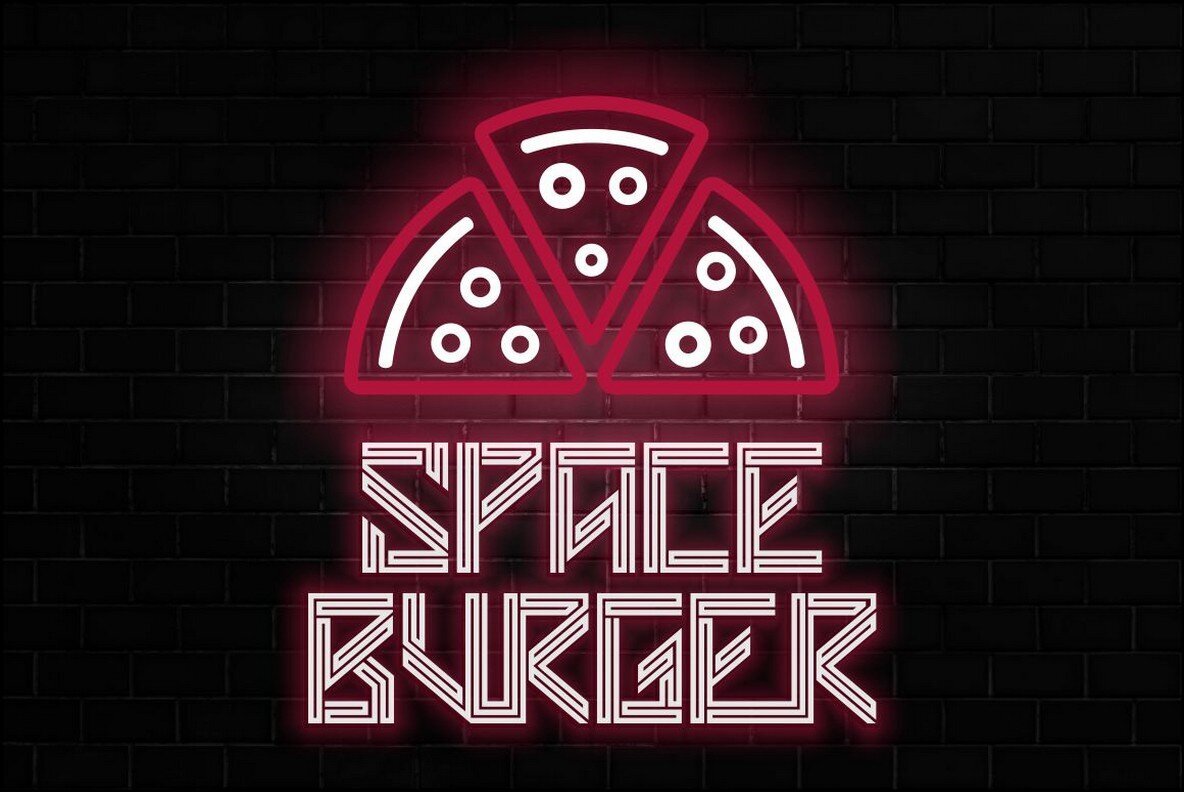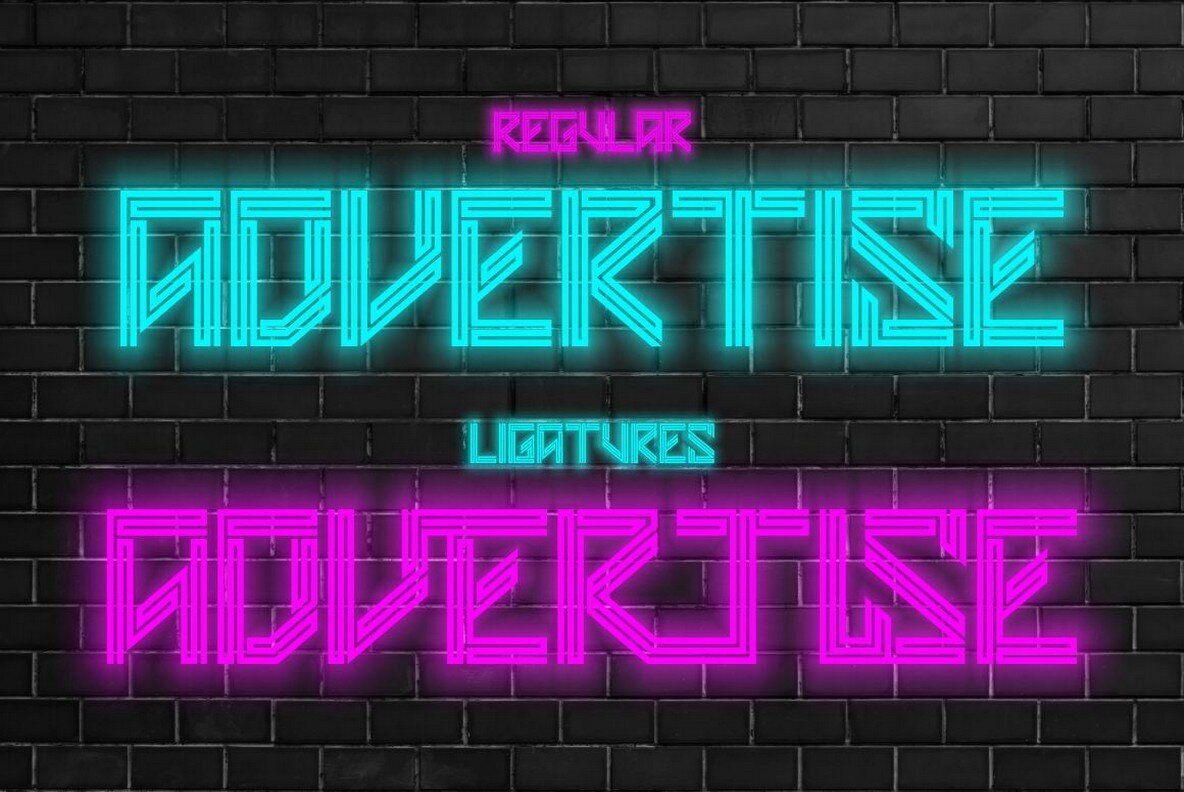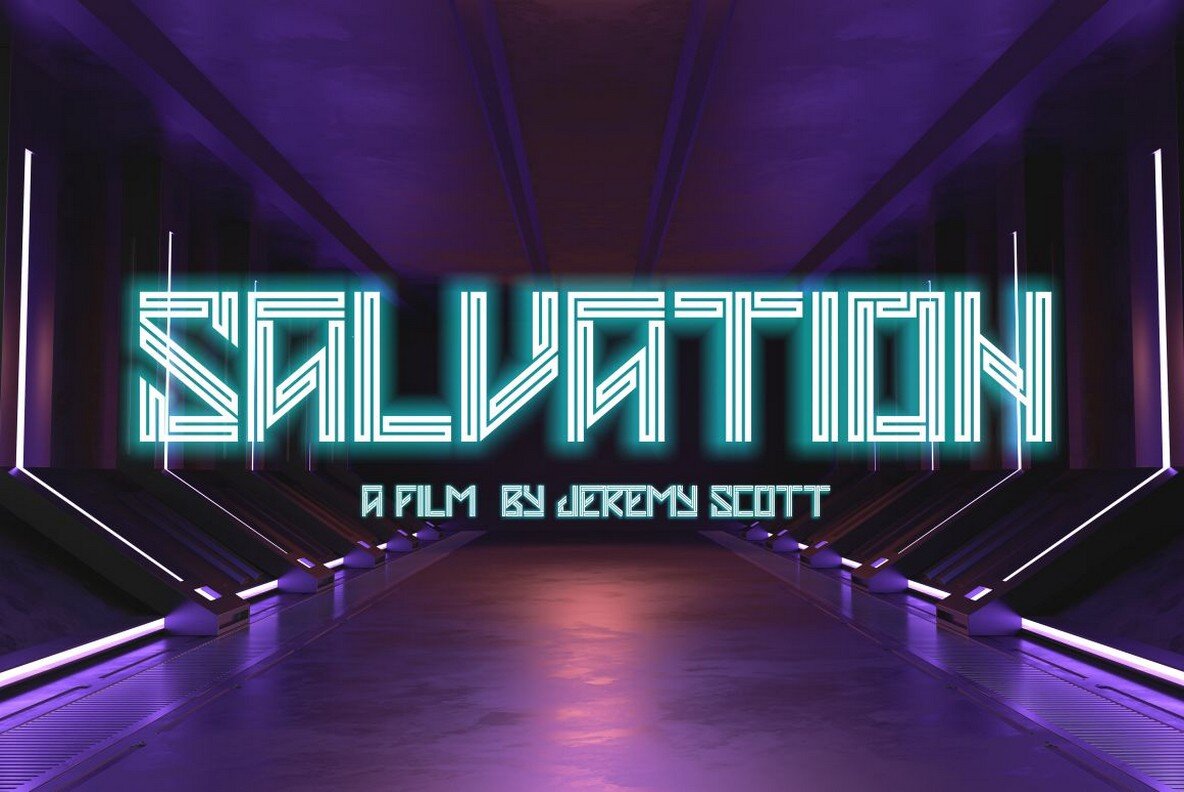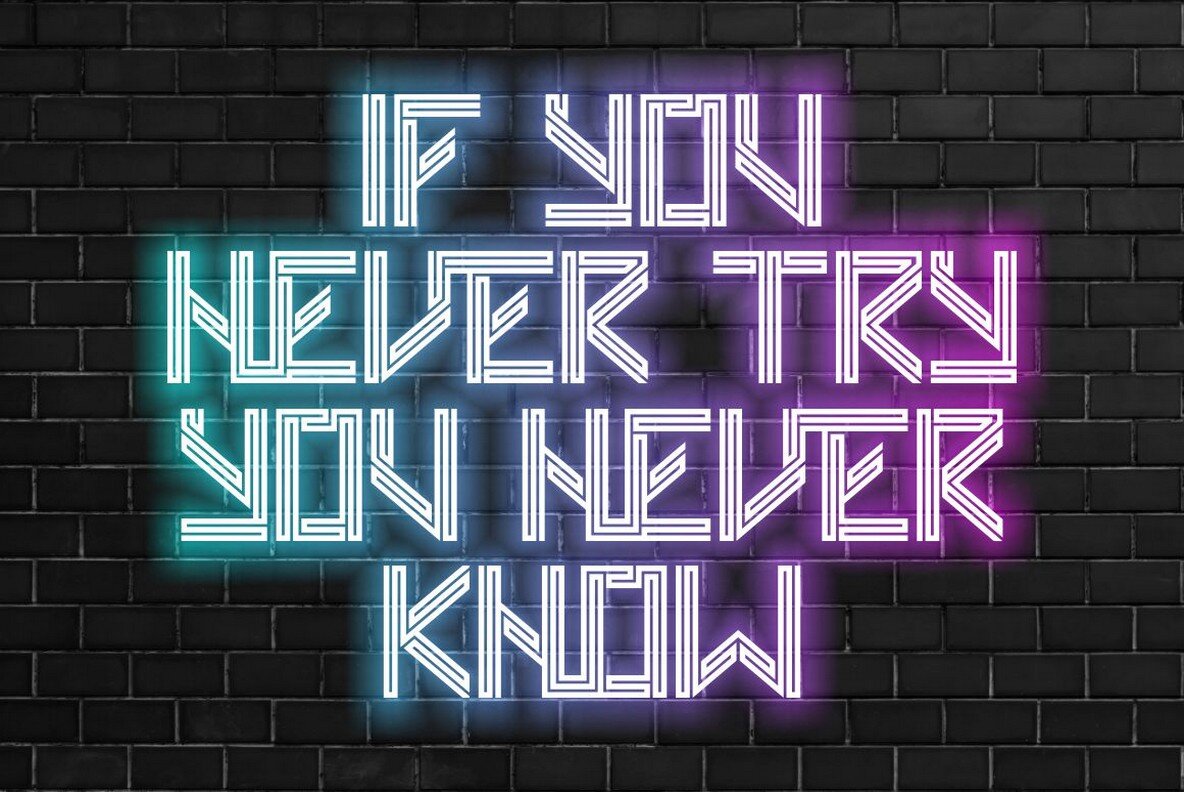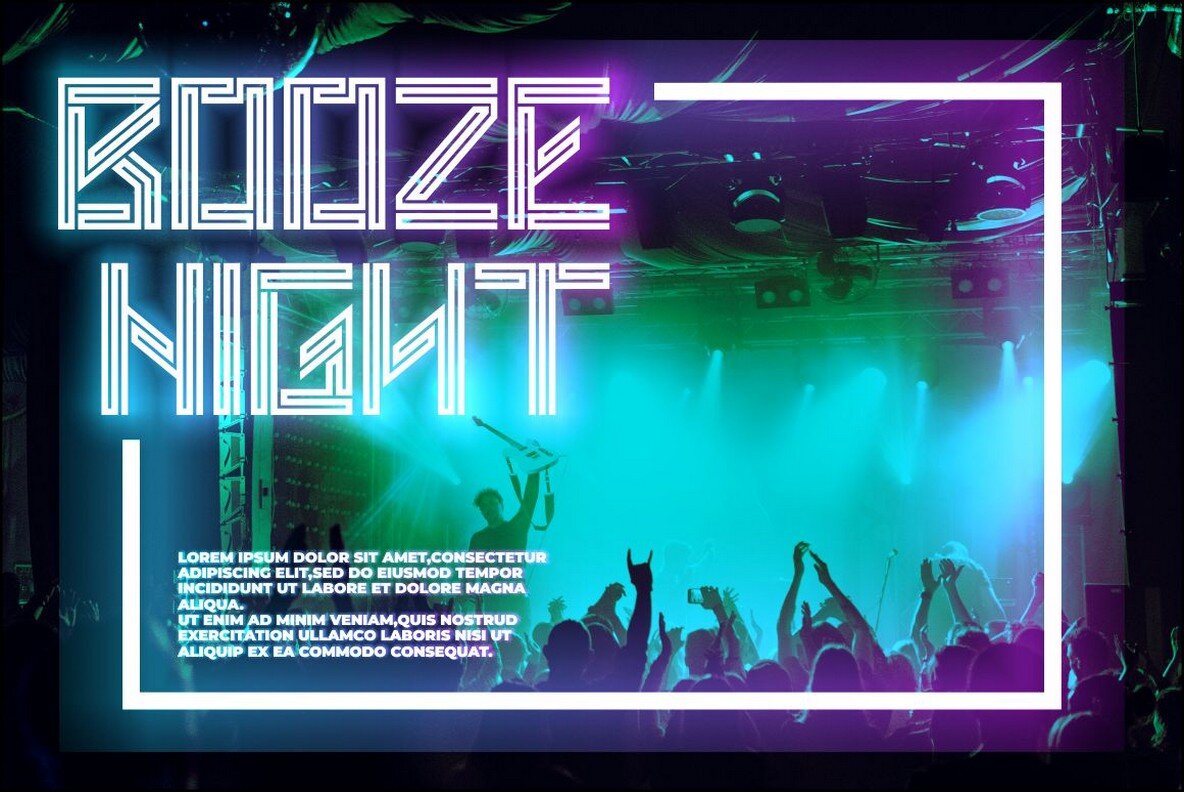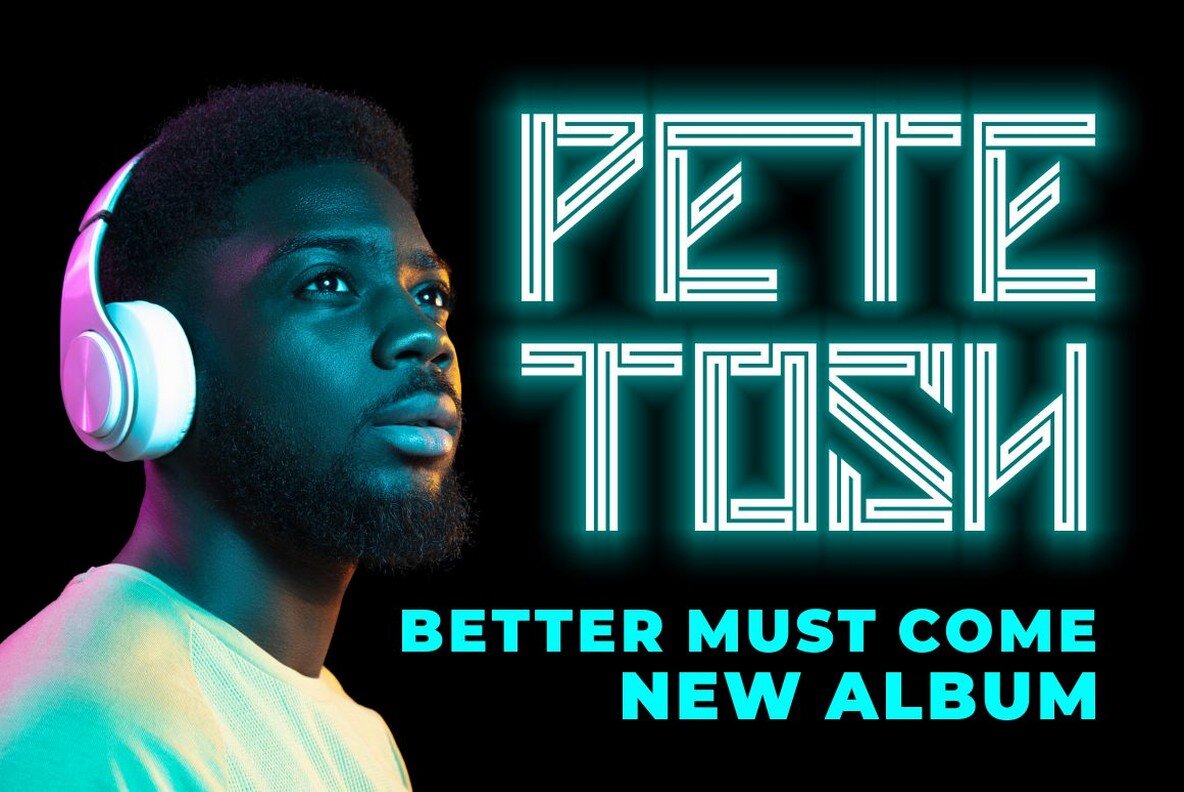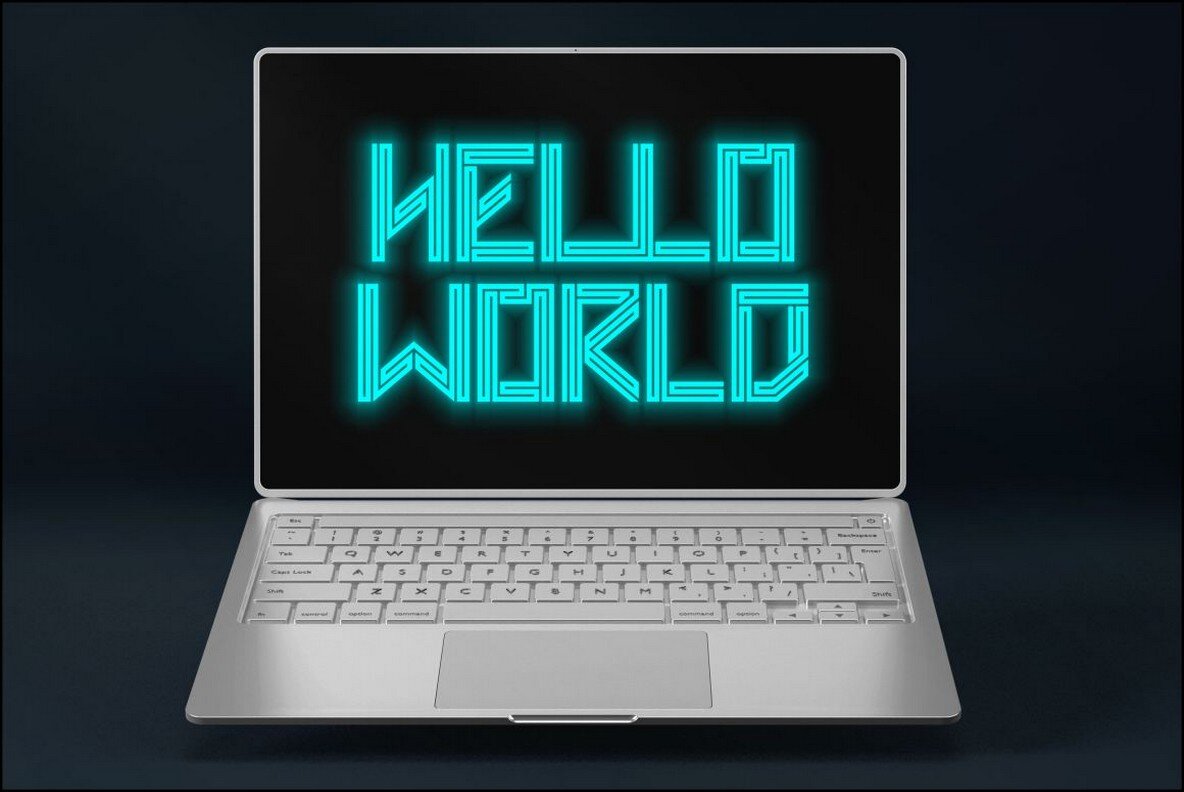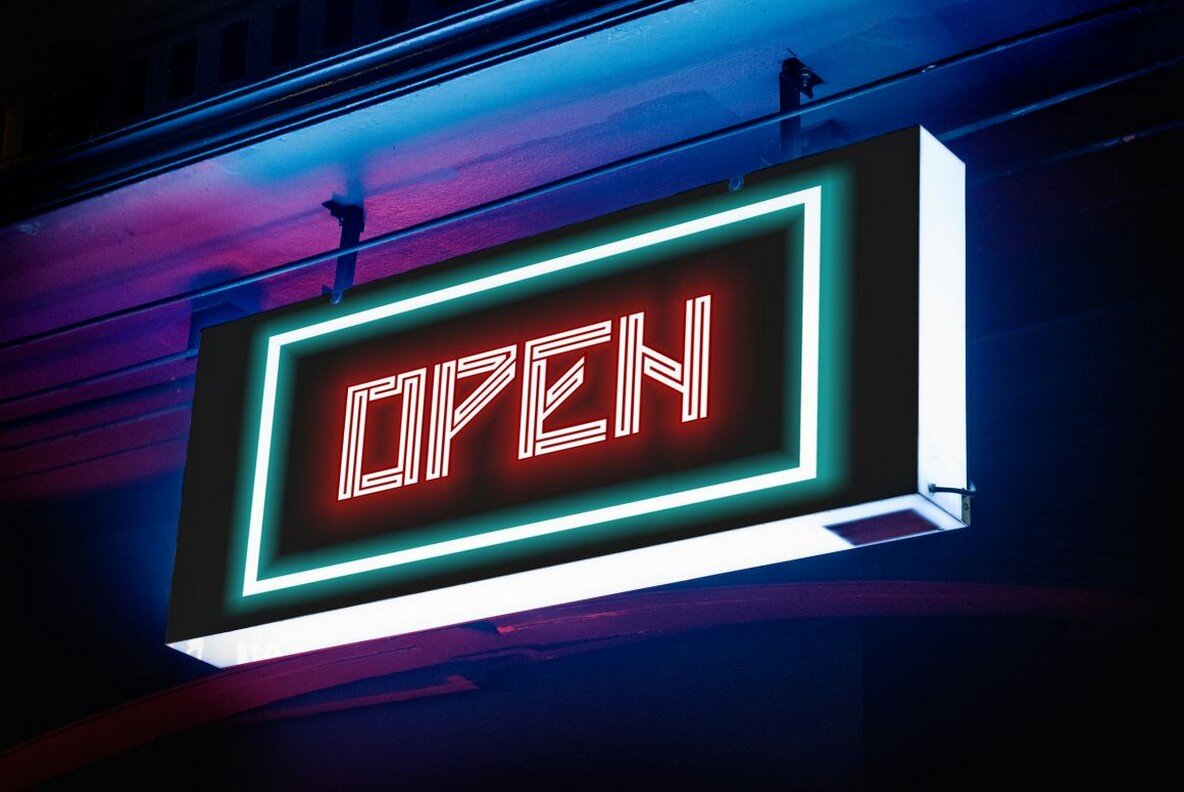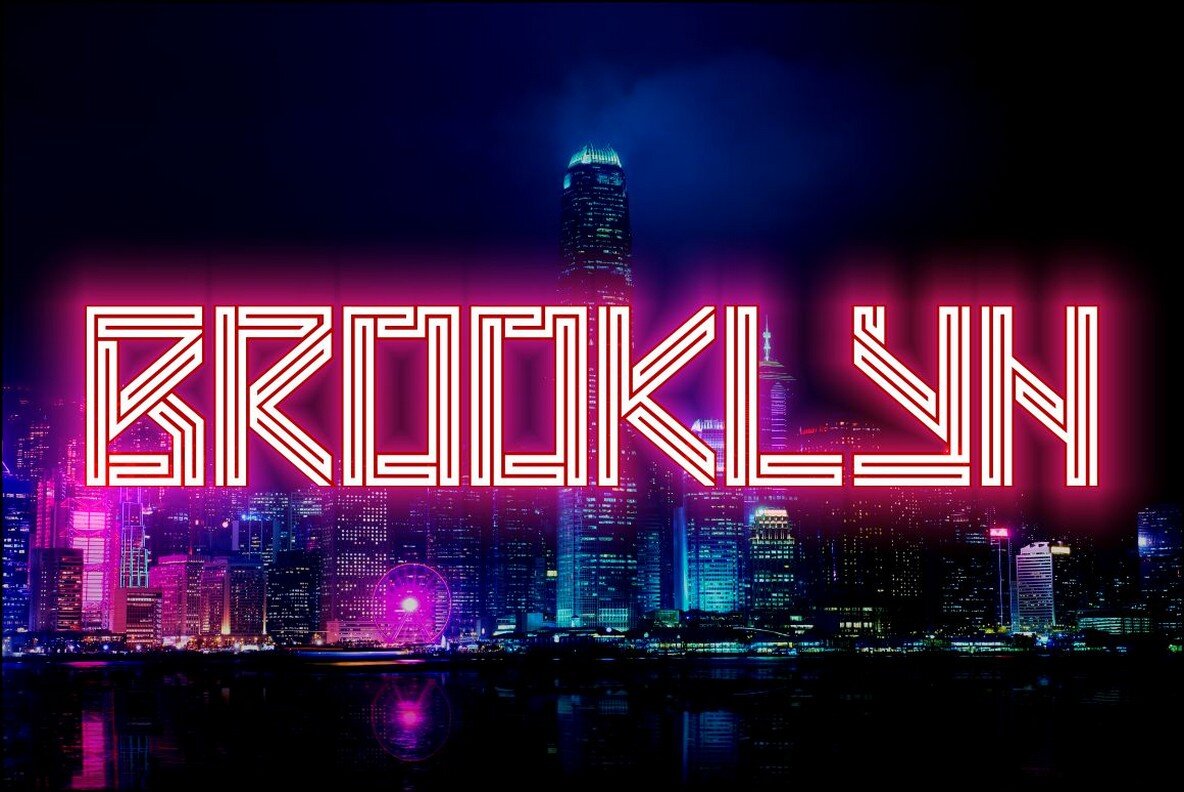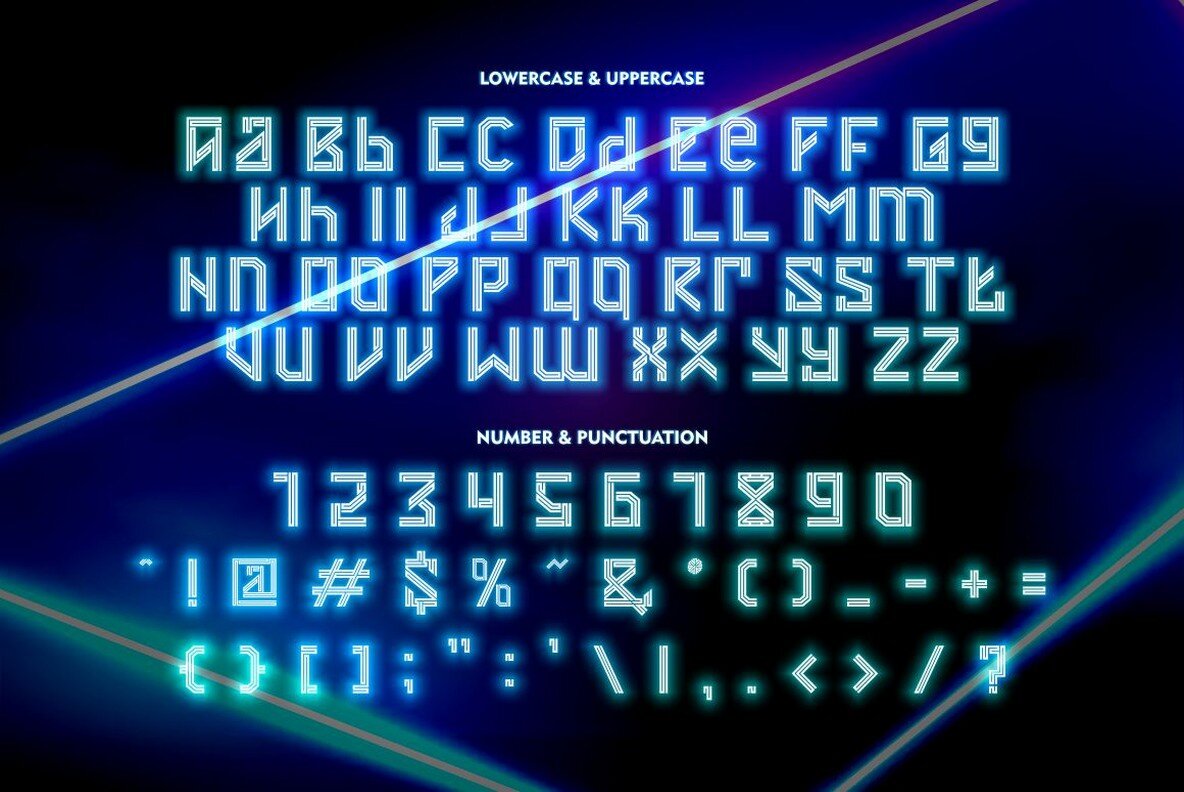
Neonbox Font
Neonbox Regular
Neonbox is a captivating display typeface that merges modern style with digital aesthetics, inspired by the glow of neon lights and futuristic neon art. An excellent choice for logo design, cover art, posters, branding projects, user interfaces, and titles. Neonbox brings a vibrant and avant-garde element to any visual project, making it a versatile addition to your creative toolkit. Neonbox also supports multiple languages, making it a globally adaptable choice. To fully exploit its range of alternate glyphs, access programs supporting OpenType features, such as Adobe Illustrator CS, Adobe Photoshop CC, Adobe InDesign, and Corel Draw.Neonbox: A Futuristic Display Typeface